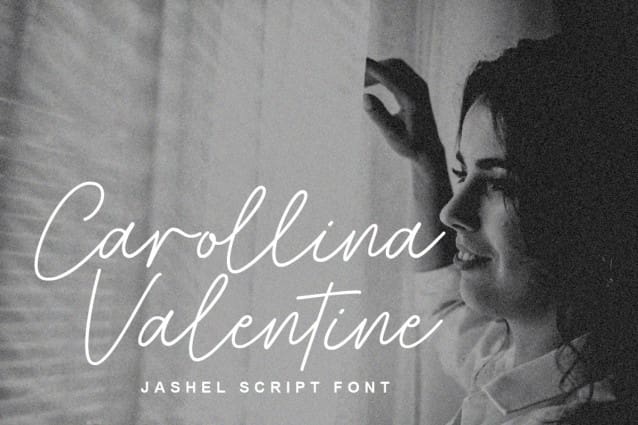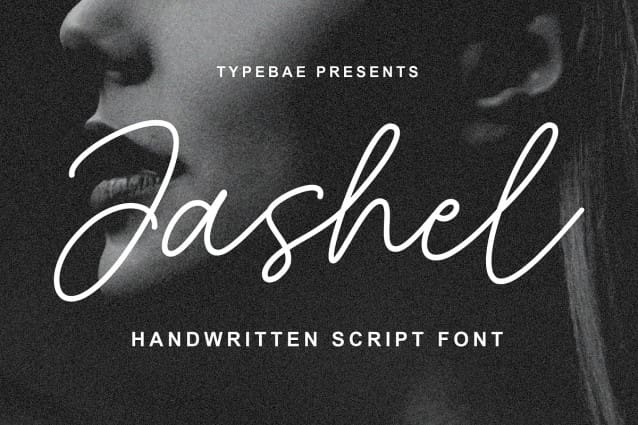
Jashel Handwritten Font
Jashel Handwritten Font is a stunning handwritten signature script font. With its graceful and flowing lines, this font closely resembles the strokes of a carefully crafted hand signature. Whether used for branding, logos, invitations, or other creative endeavors.